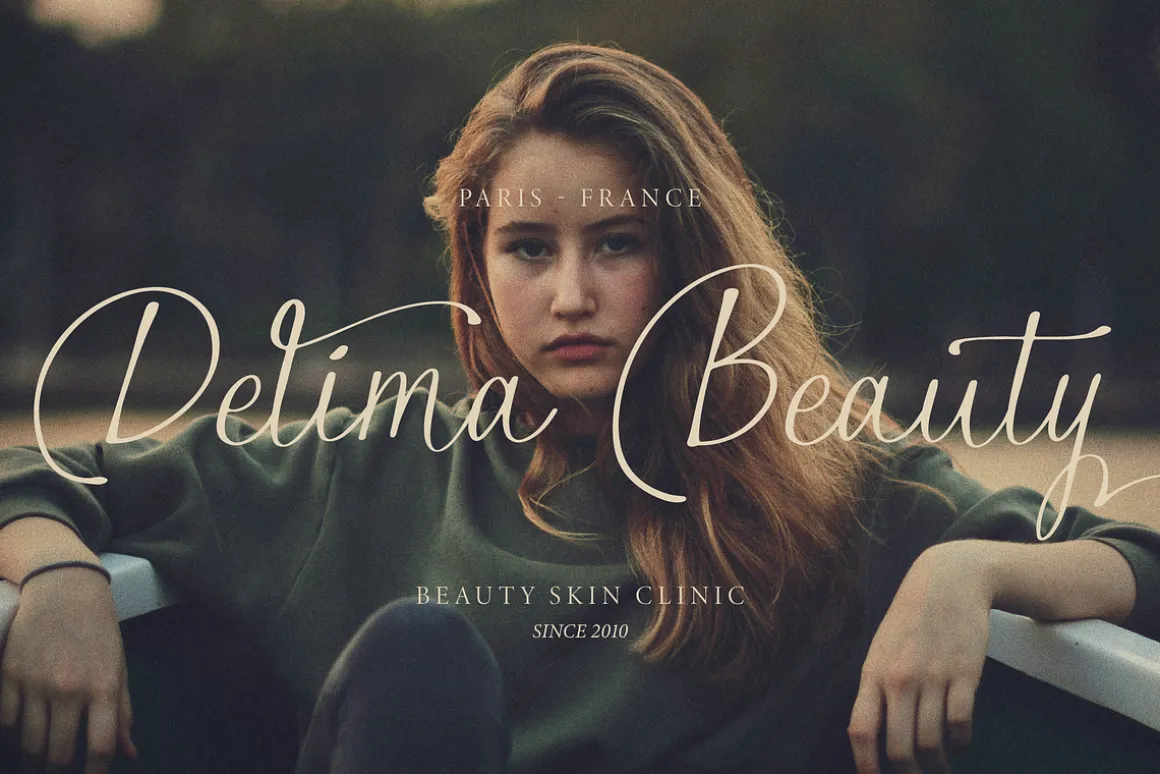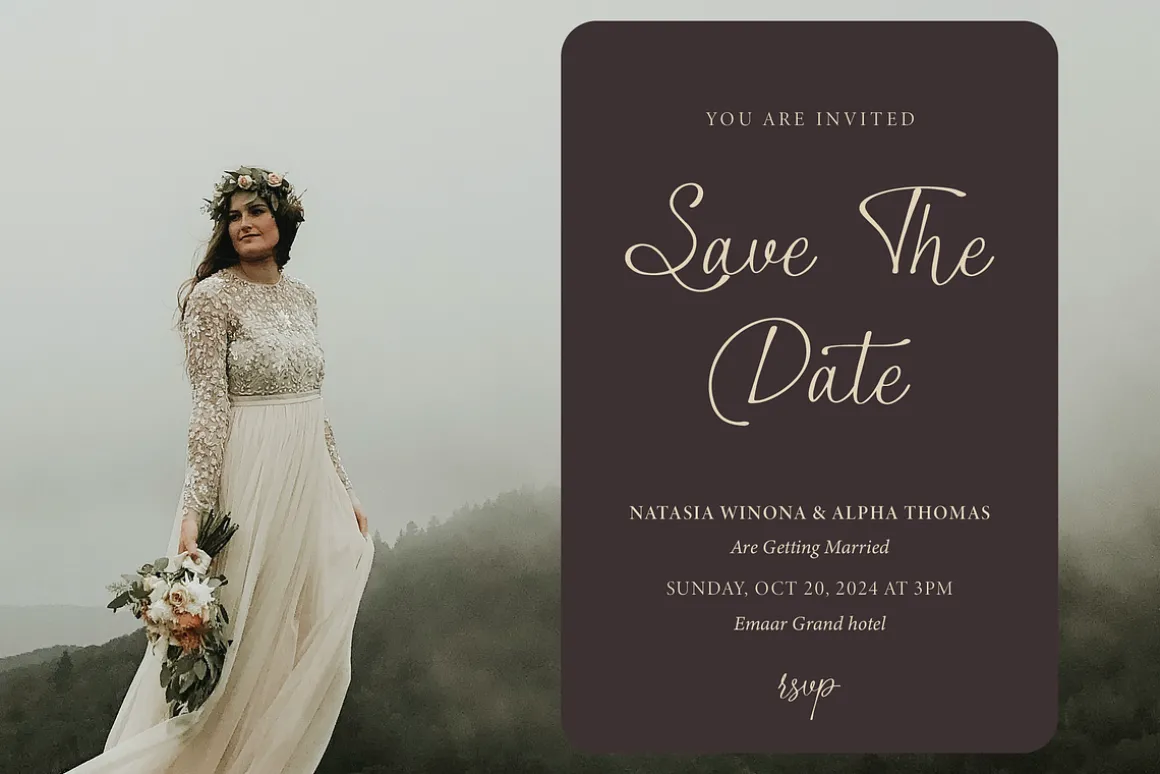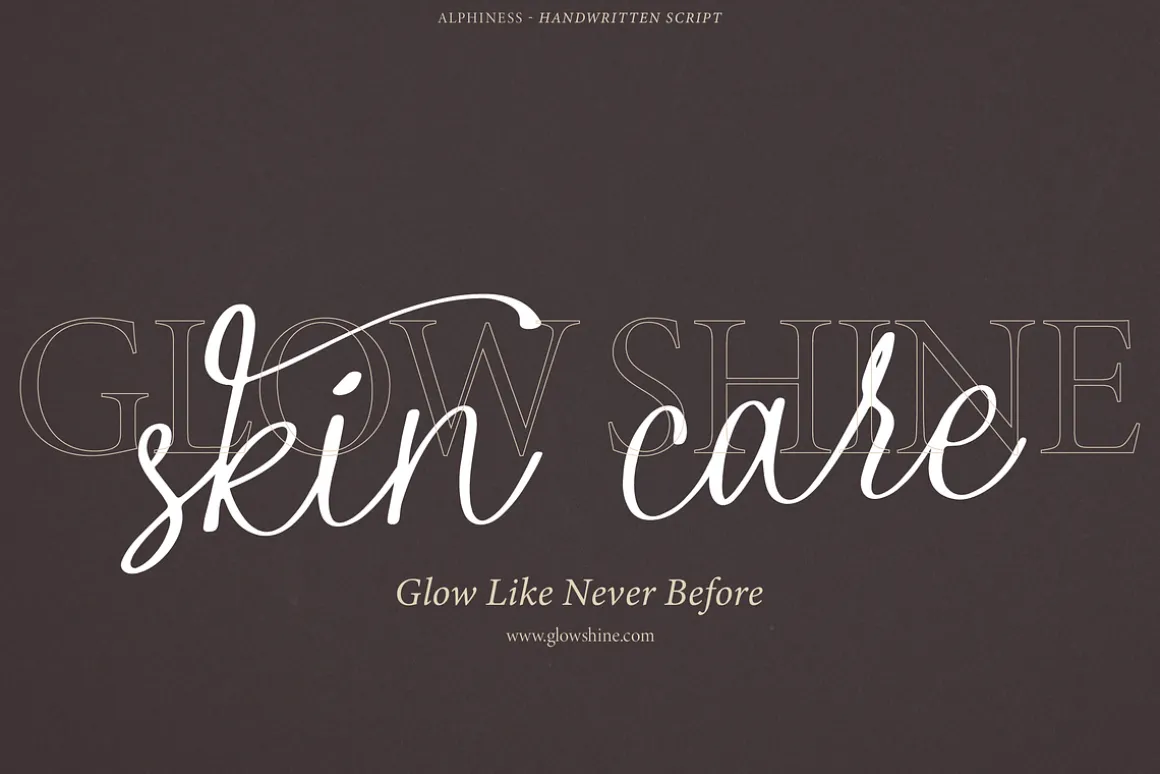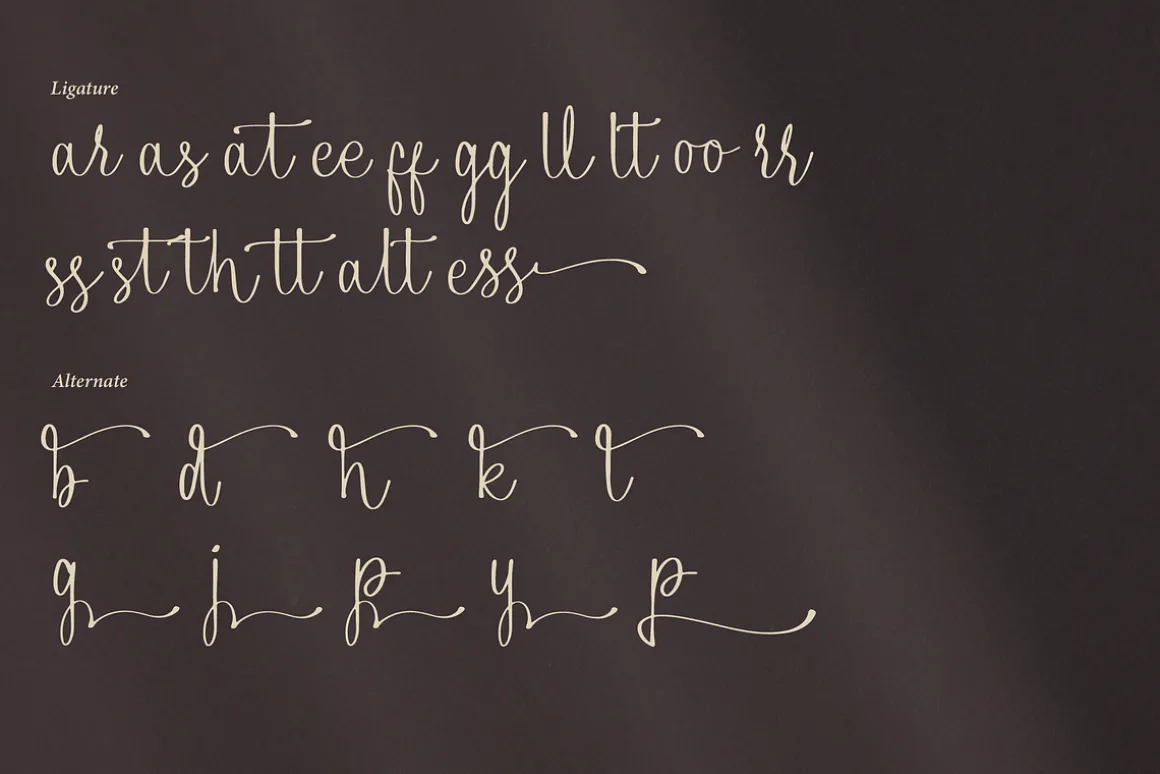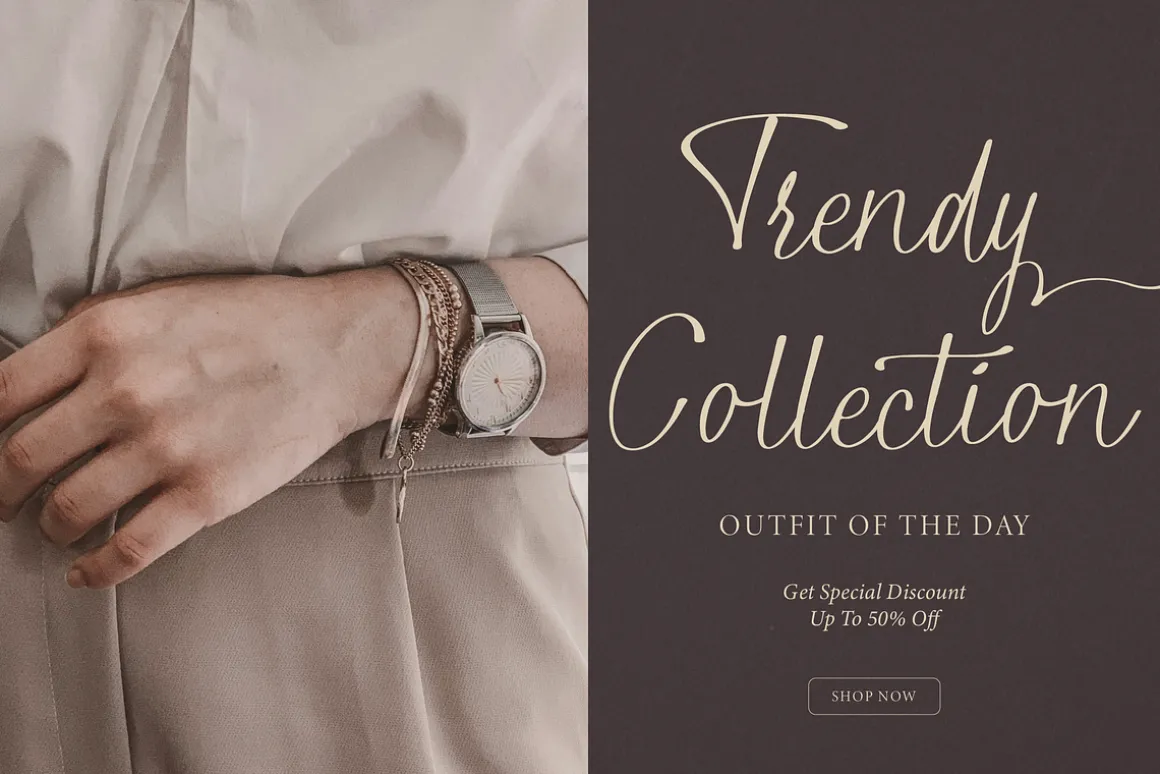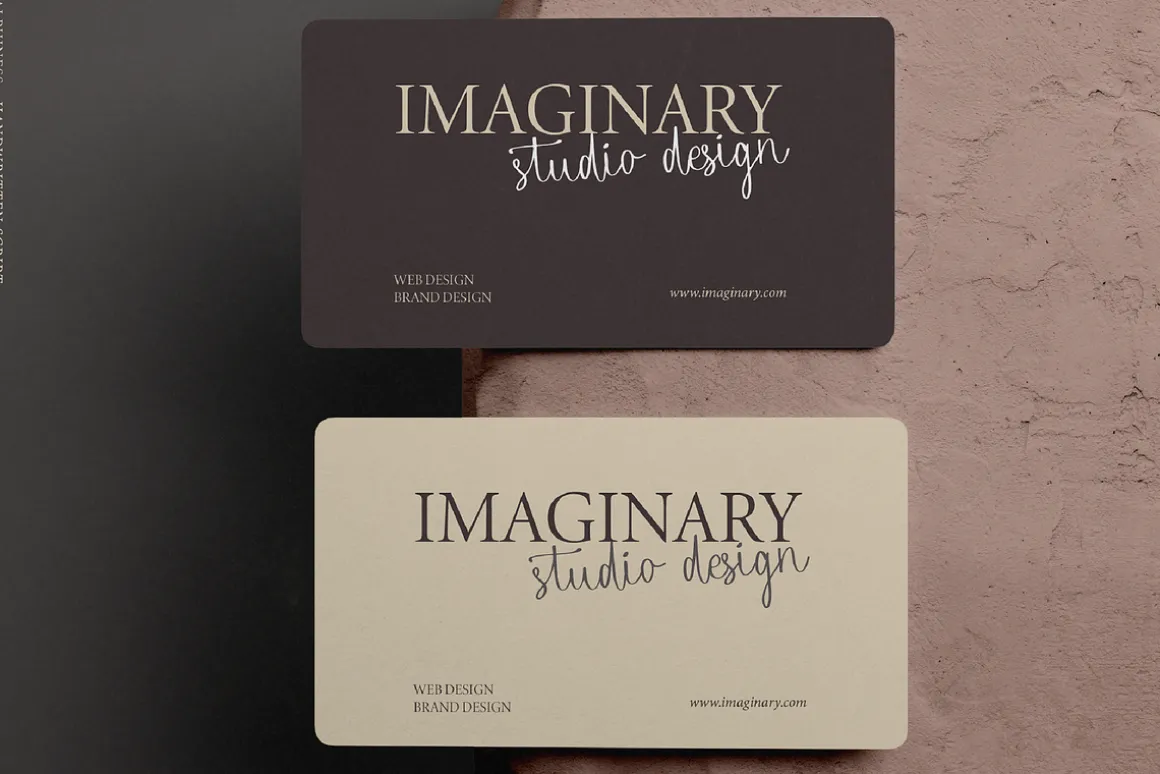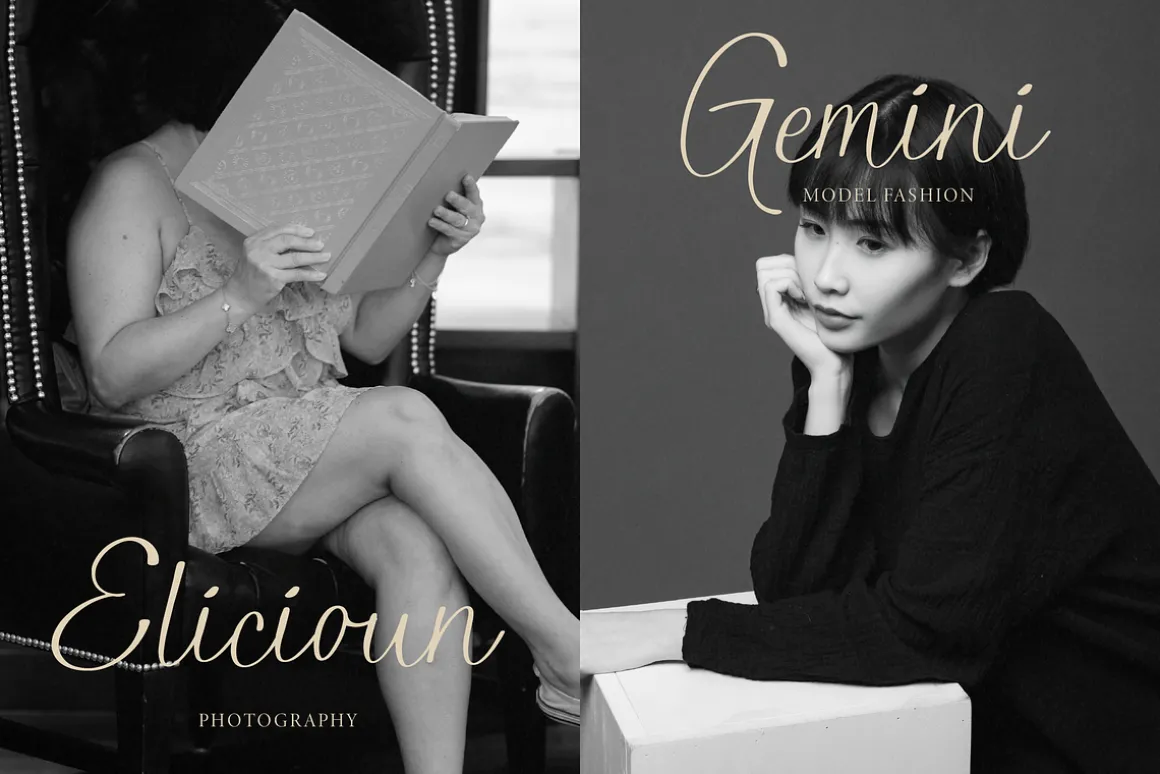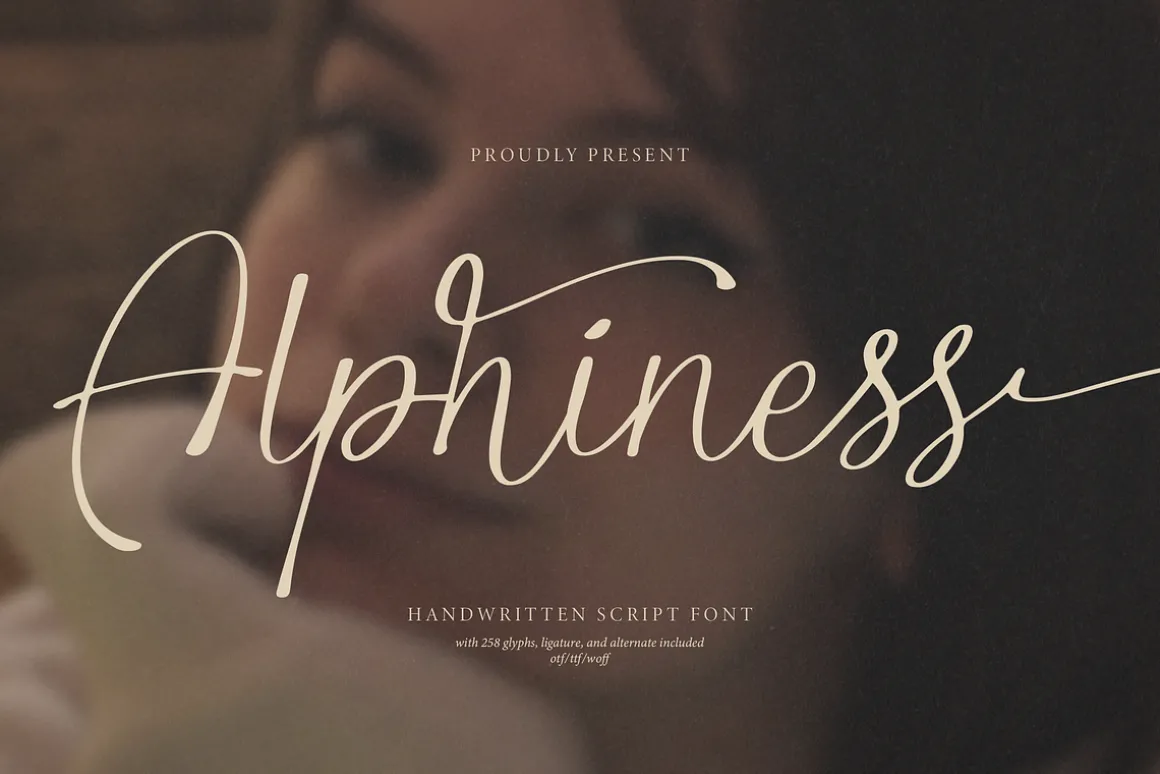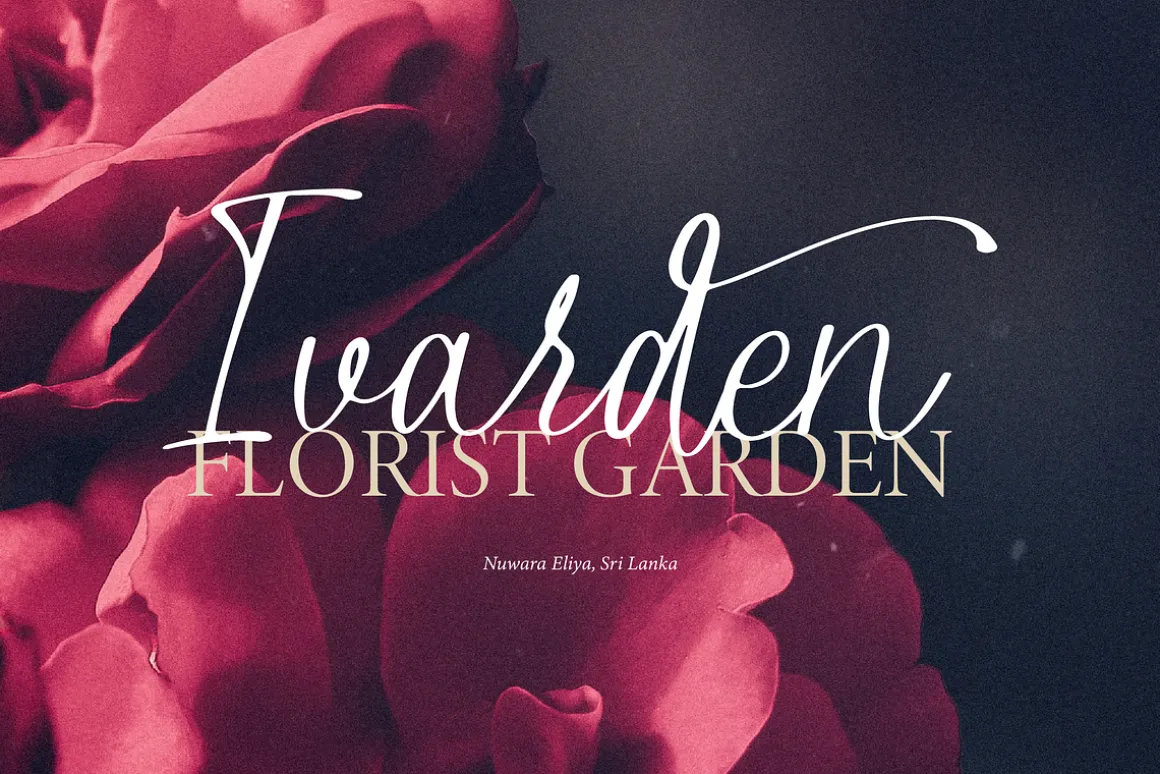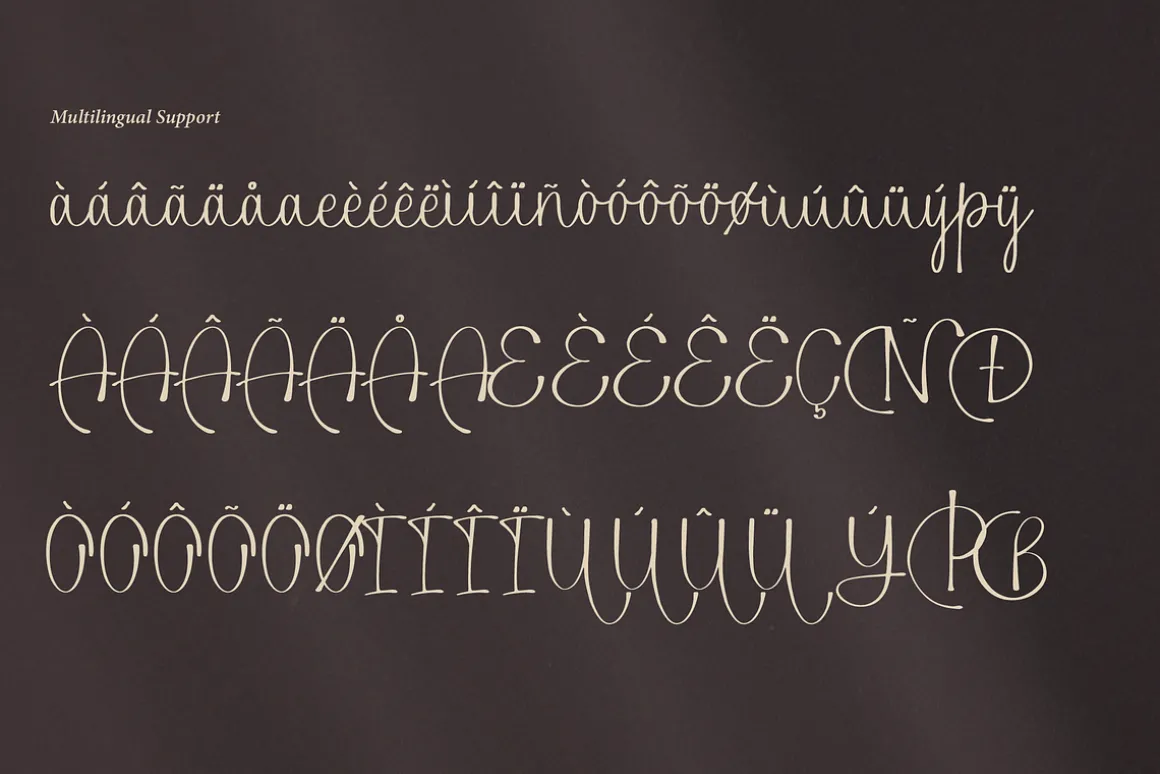
Alphiness
Handwritten Script Font, from Denustudios, suitable for any projects such as: logos, branding projects, homeware designs, product packaging, mugs, quotes, posters, shopping bags, t-shirts, book covers, name card, invitation cards, greeting cards, label, photography, watermark, special events, and all your other lovely projects that need a beautiful script taste.